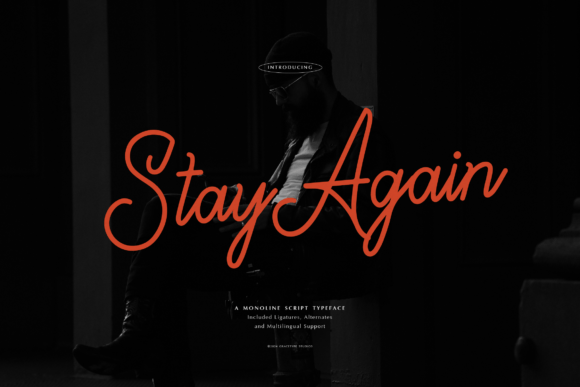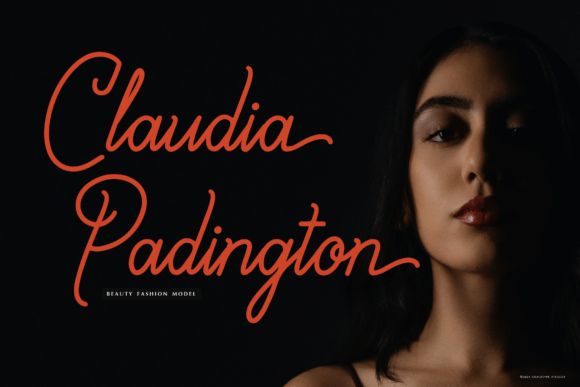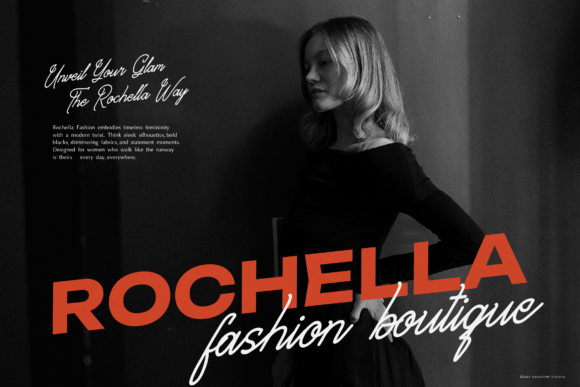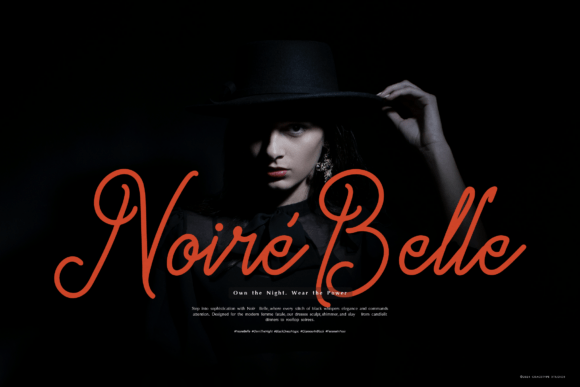
Stay Again Font: Modern Monoline Script for Elegant Branding & Social Media
About the Stay Again Font
The Stay Again Font offers a perfect balance of form and function for your design needs. Stay Again is a stylish monoline script typeface designed to make your words feel personal and polished. Perfect for quotes, social media posts, fashion campaigns, and minimalist branding, it offers great legibility with artistic flair. Ligatures and alternates provide flexibility, making it a favorite among modern creatives and digital storytellers.
Stay Again Font Usage Examples
Stay Again Font Example